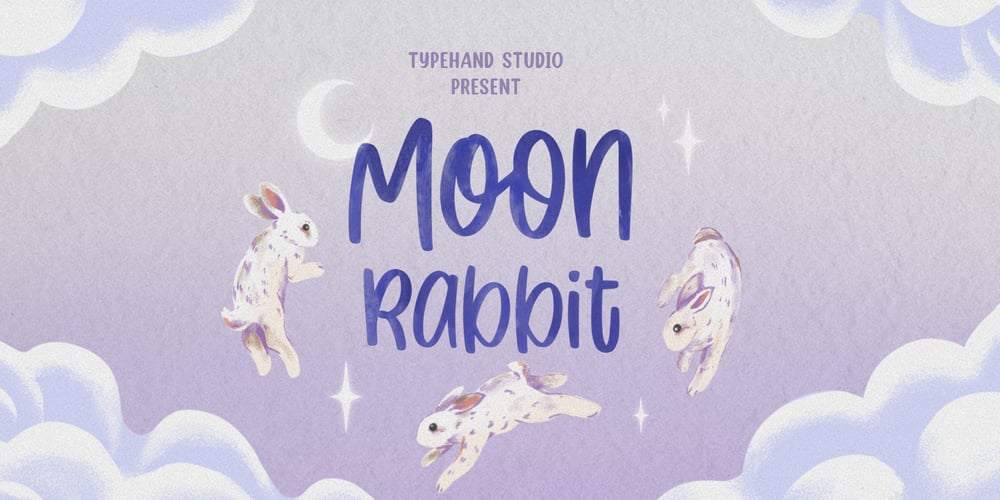
Moon Rabbit Font Family was designed by Yanuar Adi and published by Typehand Studio. Moon Rabbit contains 1 styles and family package options. Moon Rabbit – a super fun and playful hand-lettered bold typeface. It is perfect for headings, flyer, greeting cards, product packaging, book cover, printed quotes, logotype, apparel design, album covers, etc.Moon Rabbit is make from Brush Pen, Which Unique is make from hand.